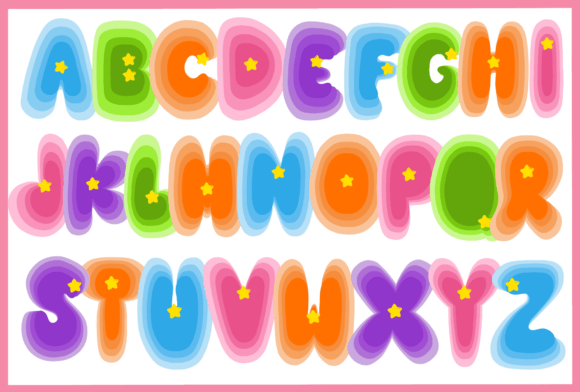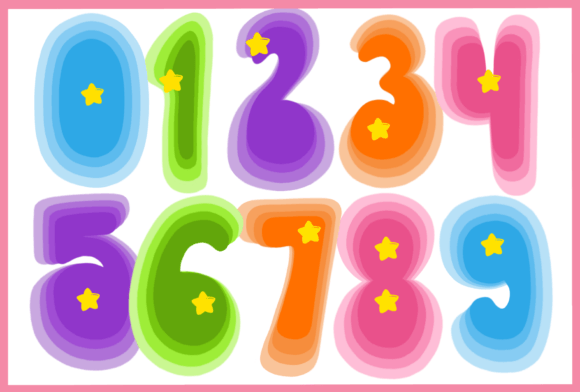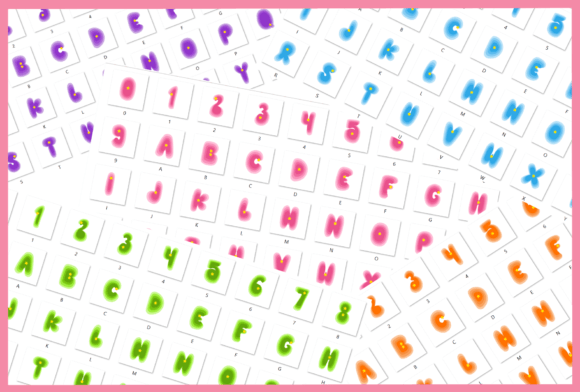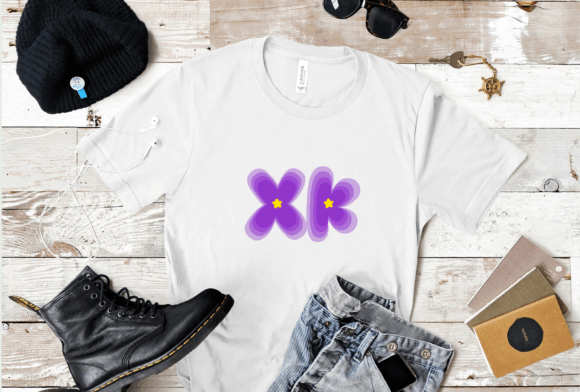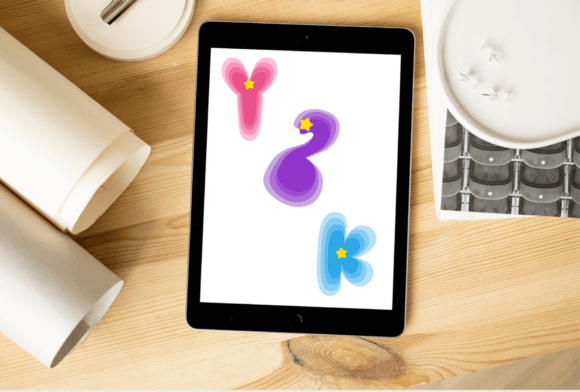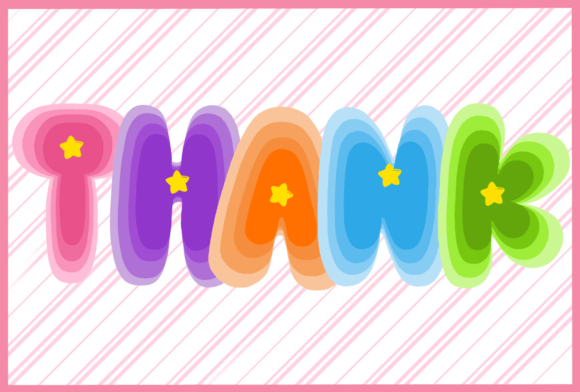
Introduction to Rain Bow Font
Have you ever been brainstorming ideas for a creative project, and suddenly, a burst of colorful inspiration hits you? For designers, those moments of spark are what make the job so rewarding. One such spark can come from discovering the perfect design resource – and the Rain Bow Font is just that. With its vibrant, layered design, this font is sure to bring a smile to your face and add a playful touch to any project.
Whether you’re working on a fun, whimsical design or simply need a high-quality font to elevate your work, the Rain Bow Font is a valuable addition to your design toolkit. Its transparent background and bright, colored effects make it a standout choice for designers looking to add some extra flair to their projects. And with its compatibility with popular design programs like PhotoShop and Illustrator, you can easily incorporate this font into your workflow.
Ready to give your designs a colorful boost? In this article, we’ll delve into the world of the Rain Bow Font and explore its features, compatibility, and more. Whether you’re a seasoned designer or just starting out, this font is sure to be a valuable resource for your creative projects.
Key Features of Rain Bow Font
- High-quality, transparent background design, ideal for creative projects and designs that require a subtle, eye-catching effect.
- Perfect for use in digital designs, such as social media graphics, website headers, and other online content, due to its high-resolution design (at least 300 DPI).
- Rain Bow Font is a unique and creative design element, offering a range of color options and customizable styles to suit various design needs.
- Easy to use and edit, thanks to its well-designed structure and intuitive layout, making it a great addition to any design project.
Honest Review: Rain Bow Font
- ✨ High quality design that stands out from the crowd
- ✨ Easy to use, even for beginners
- ✨ Great for designers who want to add a pop of color to their work
- ✨ Offers a transparent background option for added flexibility
- ⚠️ Limited font options, which may not be suitable for more extensive design projects
- ⚠️ Some users may find the font too bold or overpowering
Overall, I think the Rain Bow Font is a great design resource for those looking to add some creativity to their work. While it may not be perfect for every project, it’s a great starting point for designers who want to experiment with new ideas.
Tips for Getting the Most Out of Rain Bow Font
For a high-quality design, use the Rain Bow Font in conjunction with a high-quality image or background. Experiment with different font sizes and colors to add visual interest to your design. Consider using the Rain Bow Font as a design resource for a creative project, such as a brochure or flyer.
Common Use Cases for Rain Bow Font
Is the Rain Bow Font suitable for designs with transparent backgrounds?
Yes, the Rain Bow Font is designed to work well with transparent backgrounds. Since it has a transparent background, you can easily layer it over other design elements or images without any issues. This makes it a great design resource for creative projects that require a high level of visual flexibility.